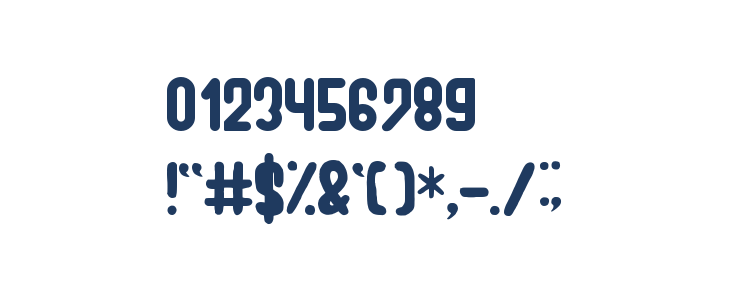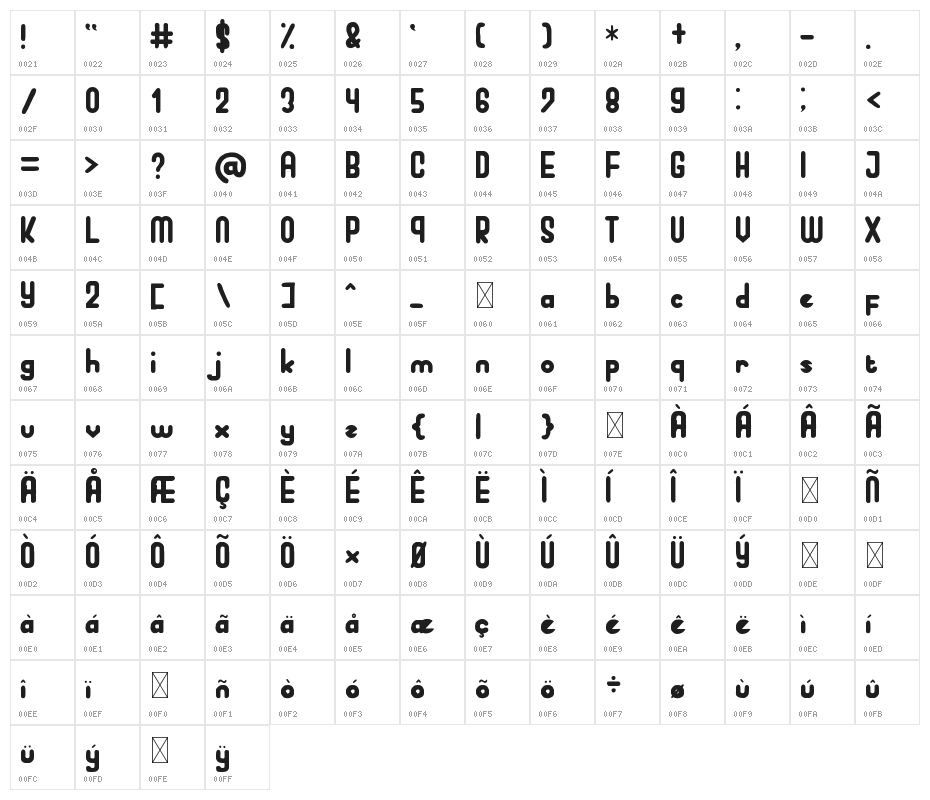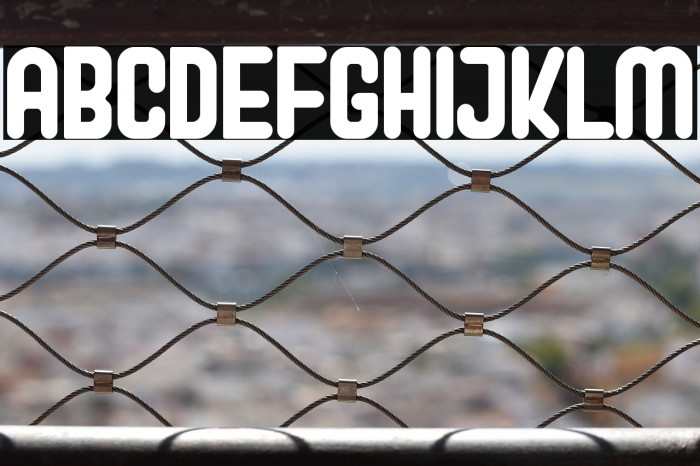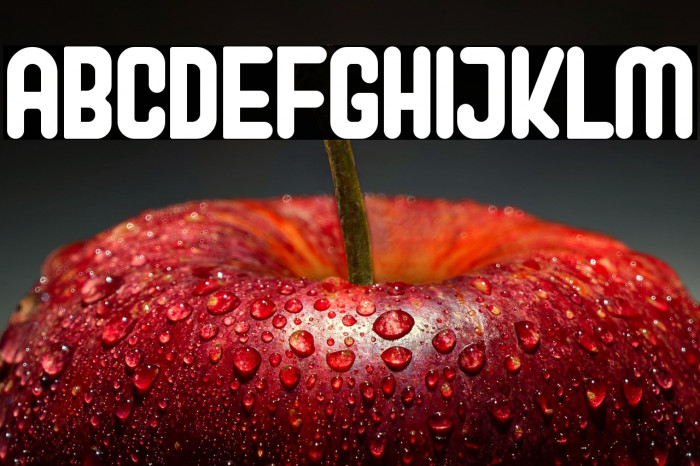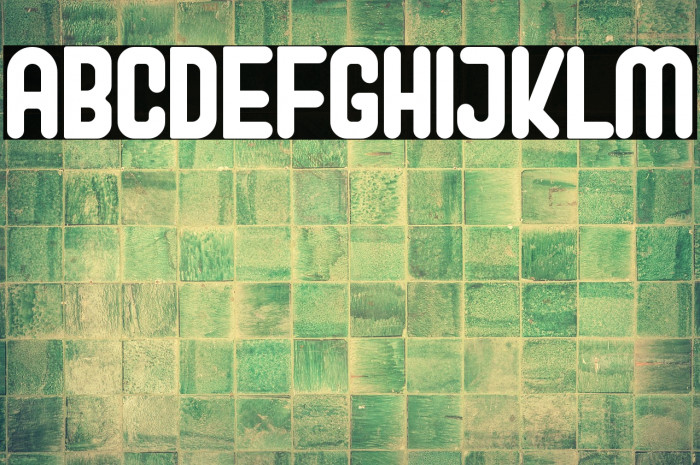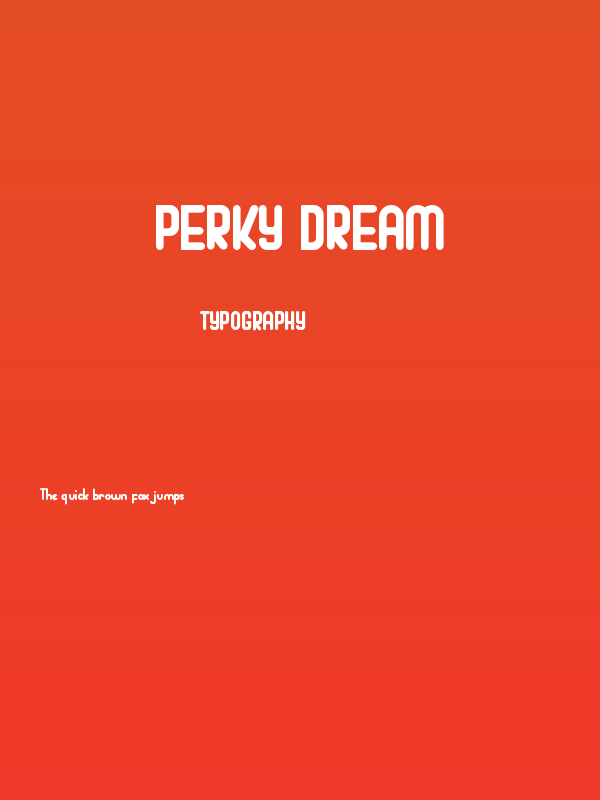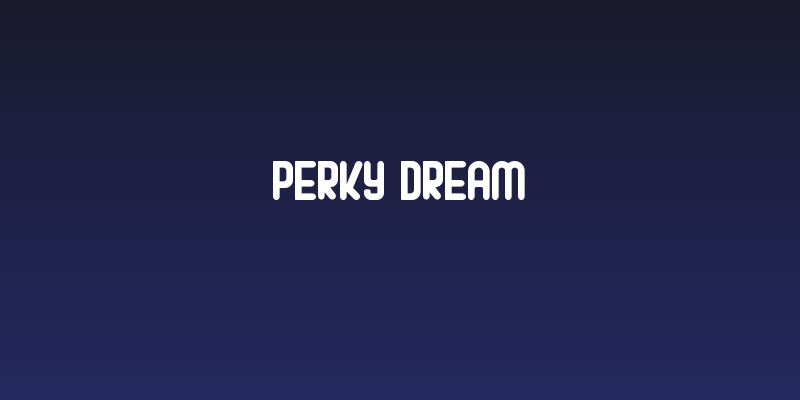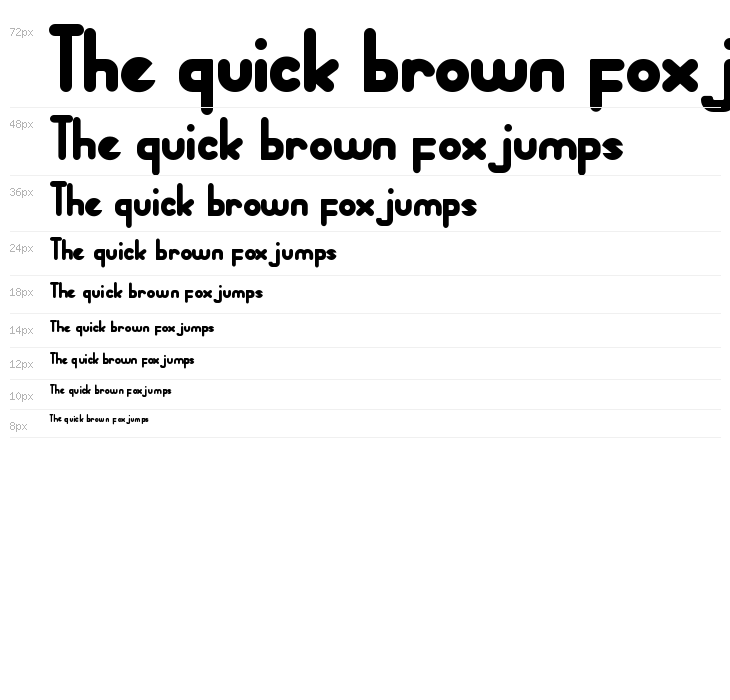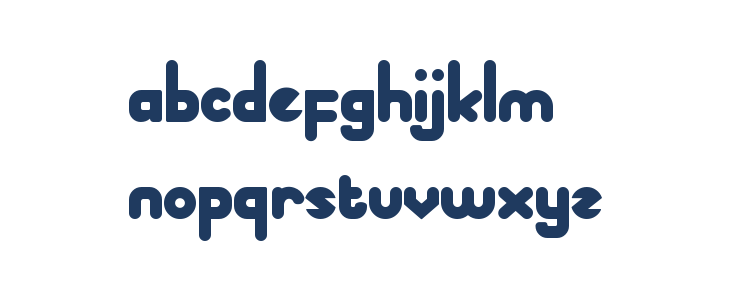
Perky Dream Font
Perky Dream Description
This font features a bold and playful design with rounded edges and a uniform thickness throughout each character. The letters have a distinct, bubbly appearance, making them stand out with a friendly and approachable vibe. The uppercase and lowercase letters maintain a consistent style, with the lowercase letters mirroring the playful curves of the uppercase. Numbers and special characters are designed to match the overall aesthetic, ensuring a cohesive look across all text. This font is ideal for projects that require a fun and engaging visual element, such as children's books, playful branding, or creative posters.
| Overall Style | Playful, Modern |
| Proposed Projects | Ideal for children's books, playful branding, creative posters, and fun invitations. |